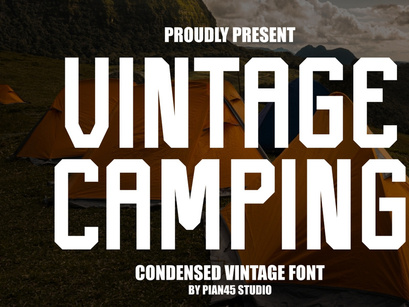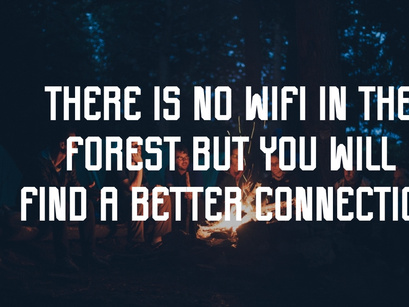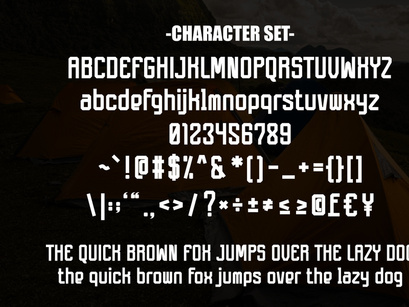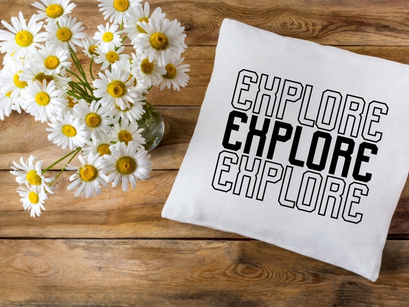
Vintage Camping is a clean, bold, and condensed vintage font that blends timeless elegance with a robust, sporty aesthetic. Perfect for creating standout headlines, logos, t-shirts, posters, and branding that needs a retro, adventurous, or academic/collegiate feel. Its striking, all-caps design makes it ideal for projects related to outdoor living, sports, luxury goods, or classic lifestyle brands. Download this distinctive display typeface to add a touch of classic charm and sophistication to your designs.